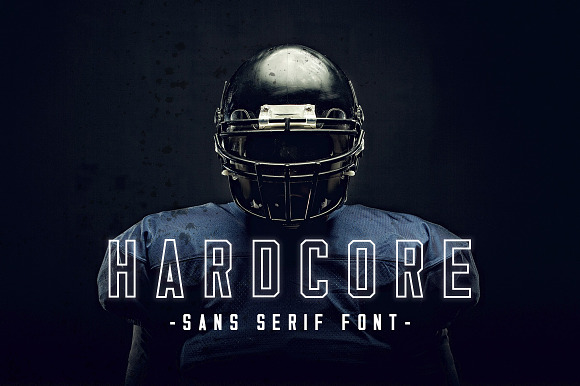
Hardcore | Three Weight Font Family
Hardcore font this is a bold sans-serif
-Three Weight Font Family
- Hardcore Regular
- Hardcore line Regular
- Hardcore texture Regular